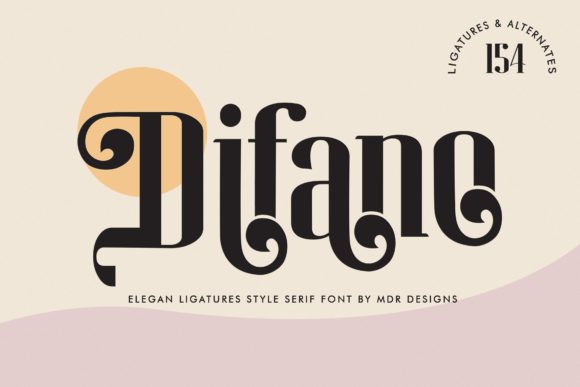
Introducing Difano: The Epitome of Elegance and Sophistication in the World of Typography
Unleash the captivating power of Difano, a remarkable serif font that exudes timeless charm and modern flair. Carefully crafted by the ingenious mdrdesigns99, this font family embodies the essence of sophistication and elegance, leaving an indelible mark on your creative endeavors.
With its graceful curves and sweeping flourishes, Difano seamlessly blends the beauty of calligraphy with a contemporary touch. Its carefully designed characters evoke a sense of luxury, making it the perfect choice for branding, logos, invitations, and any project that demands an air of distinction.
Dive into the world of Difano and let your creativity soar. Its versatility knows no bounds, captivating audiences across a wide range of applications. From elegant wedding invitations to eye-catching social media graphics, Difano effortlessly elevates your designs, leaving a lasting impression on all who encounter it.
Indulge in the allure of Difano and elevate your projects to new heights of excellence. Experience the joy of seamless readability, where each letterform dances harmoniously on the page, creating a symphony of visual delight.
Embrace the timeless beauty of Difano and unlock a world of endless possibilities. Allow your creativity to flourish as you craft captivating designs that resonate with your audience, leaving a lasting legacy of elegance and sophistication.